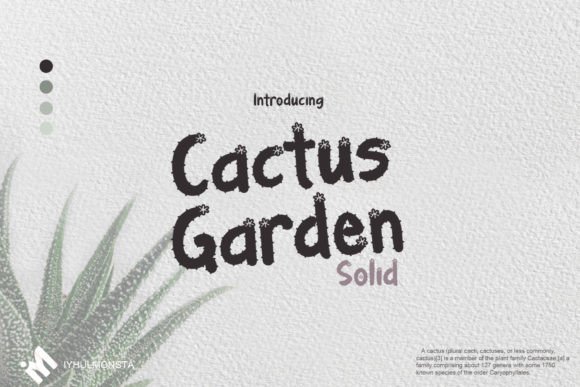
The Prickly Path to Perfection: Discovering Cactus Garden Font
I’ll never forget the design project that led me to Cactus Garden Font. I was working on a branding campaign for a trendy new plant shop, and I needed a font that would capture the playful, whimsical vibe of their brand. I spent hours scouring font websites, but nothing seemed quite right – until I stumbled upon Cactus Garden Solid. This funny decorative font has become a staple in my design toolkit, and I’m excited to share its cheerfulness with you! 😊
- ✨ Unique, hand-drawn design that adds a touch of personality to any project
- ✅ Excellent for branding, logomarks, merchandise, and packaging – anything that needs to pop!
- 💃 Highly legible, even at smaller font sizes
- 🎉 Extensive character set, including glyphs and stylistic alternates
- 🤔 Some characters may not work well in all contexts – for example, the exclamation mark might look a bit wonky
- ⚠️ Not ideal for body text or long-form writing; best used for headings or short phrases
The Story Behind Cactus Garden Font:
Cactus Garden Font was designed with one goal in mind: to bring a touch of whimsy and fun to your designs. The font’s creator was inspired by the quirky, offbeat charm of cacti and succulents, and set out to capture that spirit in a unique and versatile font. The result is a font that’s perfect for adding a dash of personality to your branding, packaging, and marketing materials.
Q: What type of projects is Cactus Garden Font best suited for?
A: Cactus Garden Font is perfect for branding, logomarks, merchandise, packaging, and any project that needs a touch of whimsy and fun.
Q: Is Cactus Garden Font easy to read?
A: Yes, Cactus Garden Font is highly legible, even at smaller font sizes. However, it’s best used for headings or short phrases rather than body text.